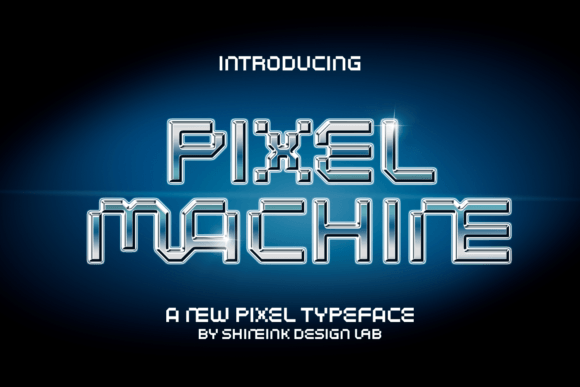
Introducing Pixel Machine Font, the ultimate solution for overcoming writer's block and adding a touch of nostalgia to your projects! Created by shineink.designlab, this playful and eye-catching display font instantly transports you back to the golden age of old-school video games.
With its pixelated design and vibrant colors, Pixel Machine Font breathes life into your digital designs, gaming projects, and branding endeavors. Each letter is meticulously crafted to showcase personality and charm, making your text stand out from the crowd.
But what sets Pixel Machine Font apart from the rest? It's the perfect blend of functionality and creativity. This font's PUA encoding allows for effortless access to a vast array of delightful glyphs and swashes. Unleash your imagination and explore the endless possibilities of this font, effortlessly adding unique touches to your work.
Are you tired of staring at a blank screen, struggling to find inspiration? Pixel Machine Font is here to save the day! Its retro-cool aesthetic brings a sense of fun and adventure to your projects, banishing writer's block and sparking new ideas. From blog headers to social media graphics, this font will captivate your audience and leave a lasting impression.
Pixel Machine Font isn't just for gamers or designers. It's for anyone who wants to inject a dose of personality and creativity into their work. Whether you're creating a logo, designing a website, or crafting a poster, this font elevates your project to new heights.
Don't settle for ordinary fonts that blend into the background. Stand out from the crowd with Pixel Machine Font and let your creativity run wild. So go ahead, take a leap into the nostalgia of old-school video games and unlock the potential of Pixel Machine Font today!